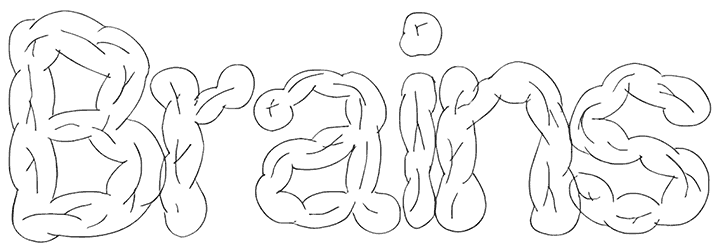
Brains Font
It’s undoubtedly going to be really weird, but yes, you’re looking at a brain-face font that can make your design seem creepy and even queasy. Brains with a decorative mood is a display font with pale and mysterious letters. Decorate your subsequent designs like lettering on covers, horror titles, posters, and whatnot with an unusual style and be memorable.
p.s. I created this font on my iPad with the app FontMaker so you’ll need to play with the kerning. Also if the lines seem thin its meant to be a colored font so play with the positive and negative space. You know be a designer and make it work for your project or not.